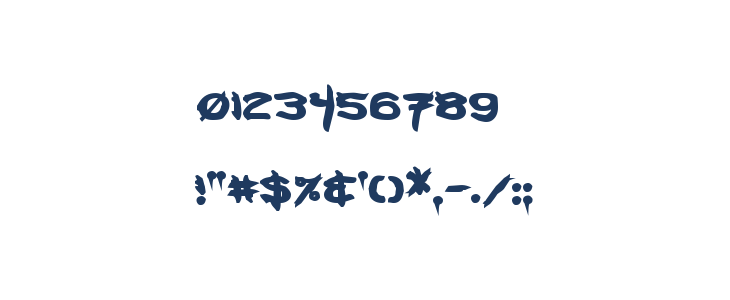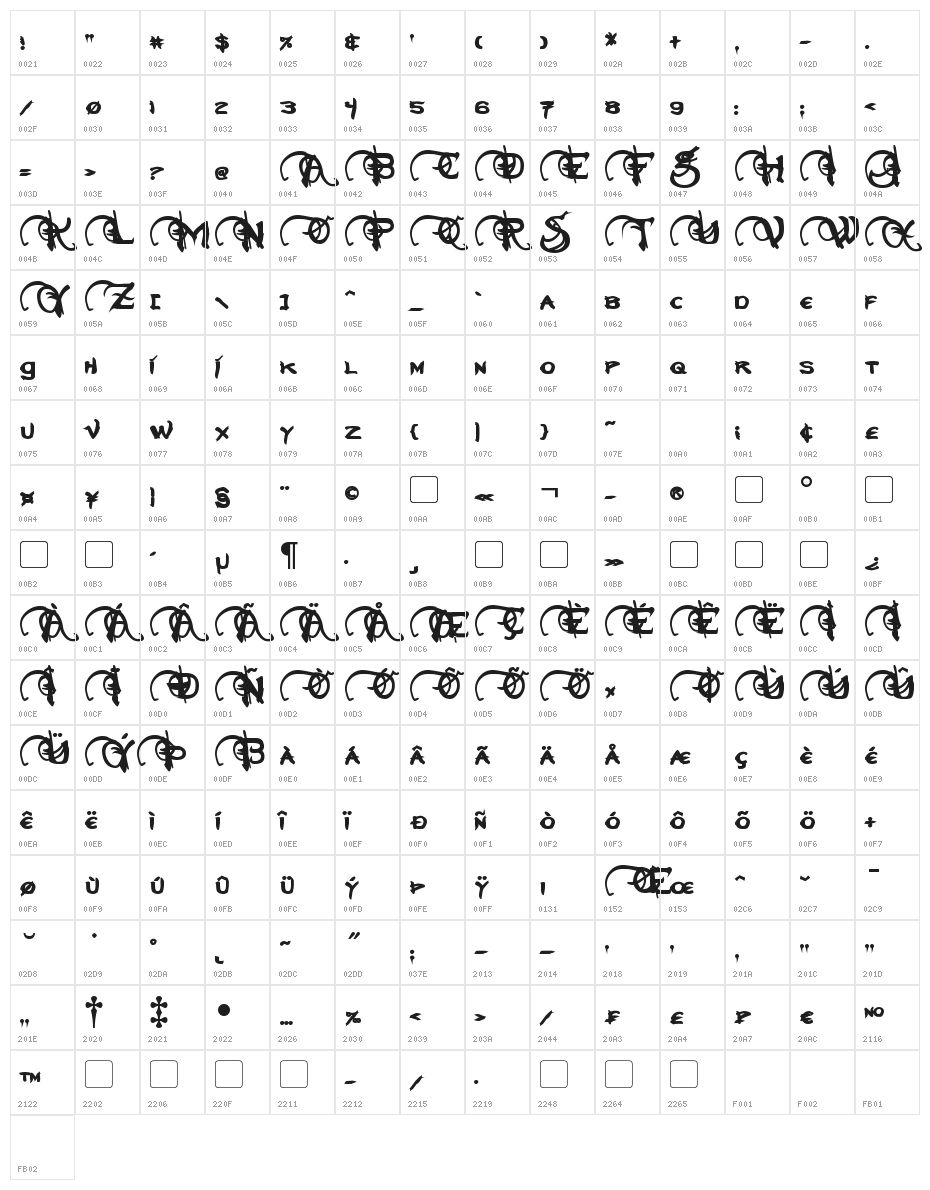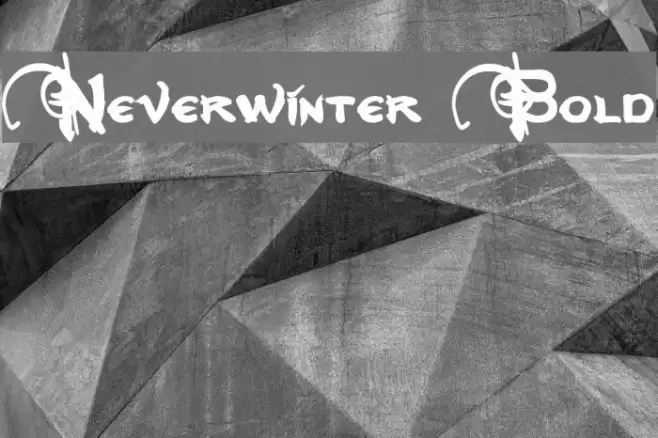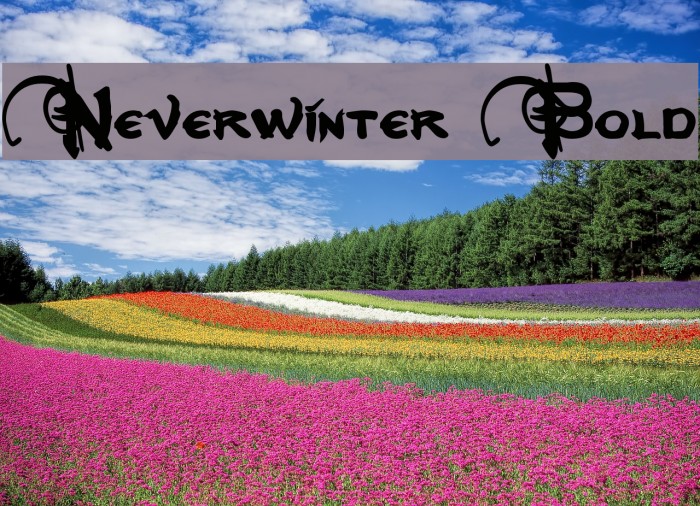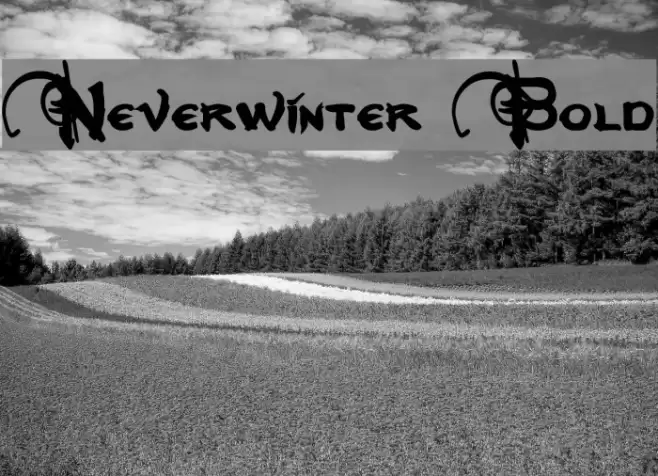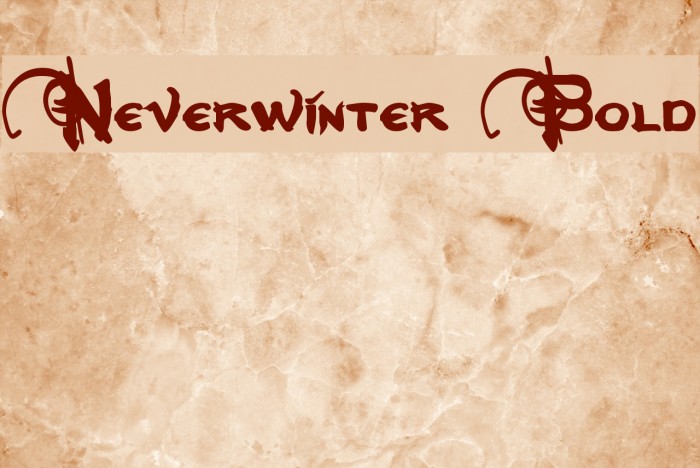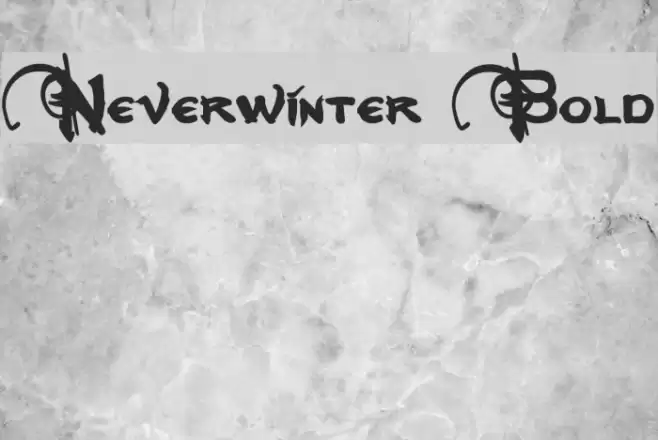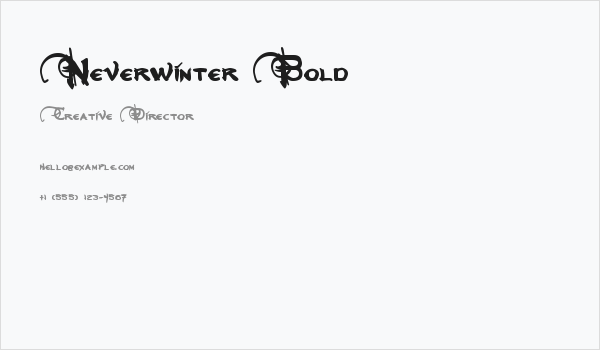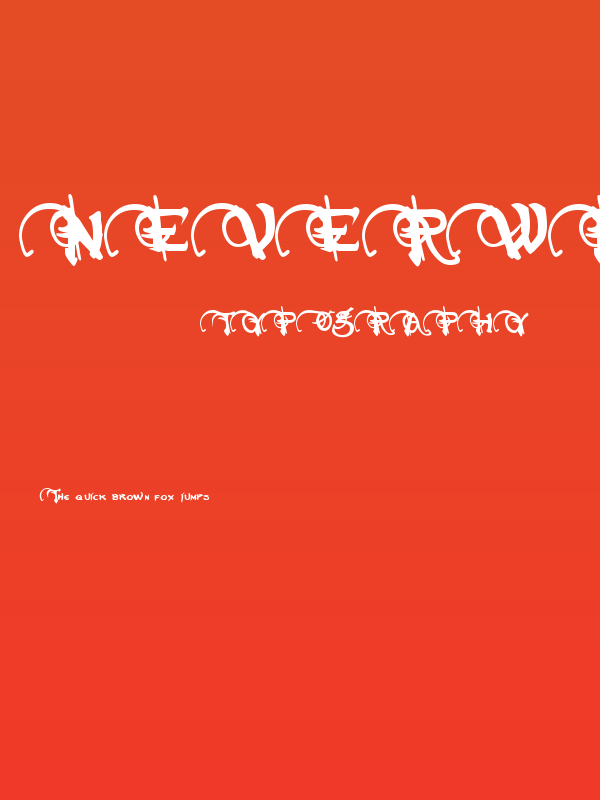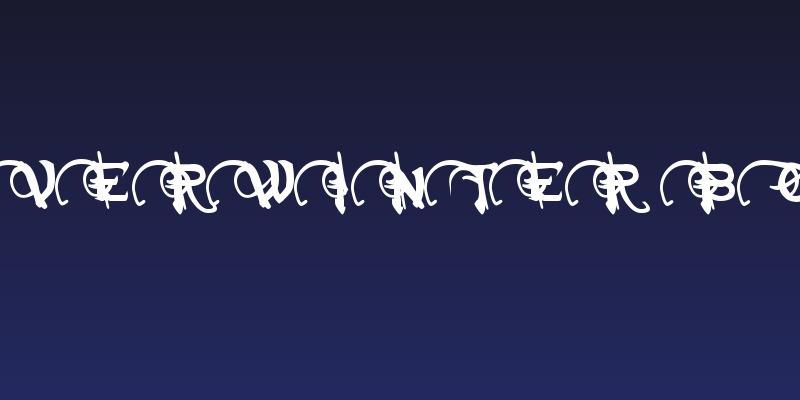
Neverwinter Bold Font
Neverwinter Bold Description
This font exhibits a bold and dramatic style, characterized by its thick strokes and sharp, angular edges. The uppercase letters are particularly striking, with a sense of movement and energy that suggests a medieval or fantasy theme. The lowercase letters maintain this boldness, ensuring consistency across the typeface. Numbers and special characters are equally robust, making them stand out in any design. The overall aesthetic is both powerful and artistic, suitable for projects that require a strong visual impact.
| Proposed Projects | Ideal for fantasy-themed posters, video game titles, book covers, and branding that requires a strong, impactful presence. |